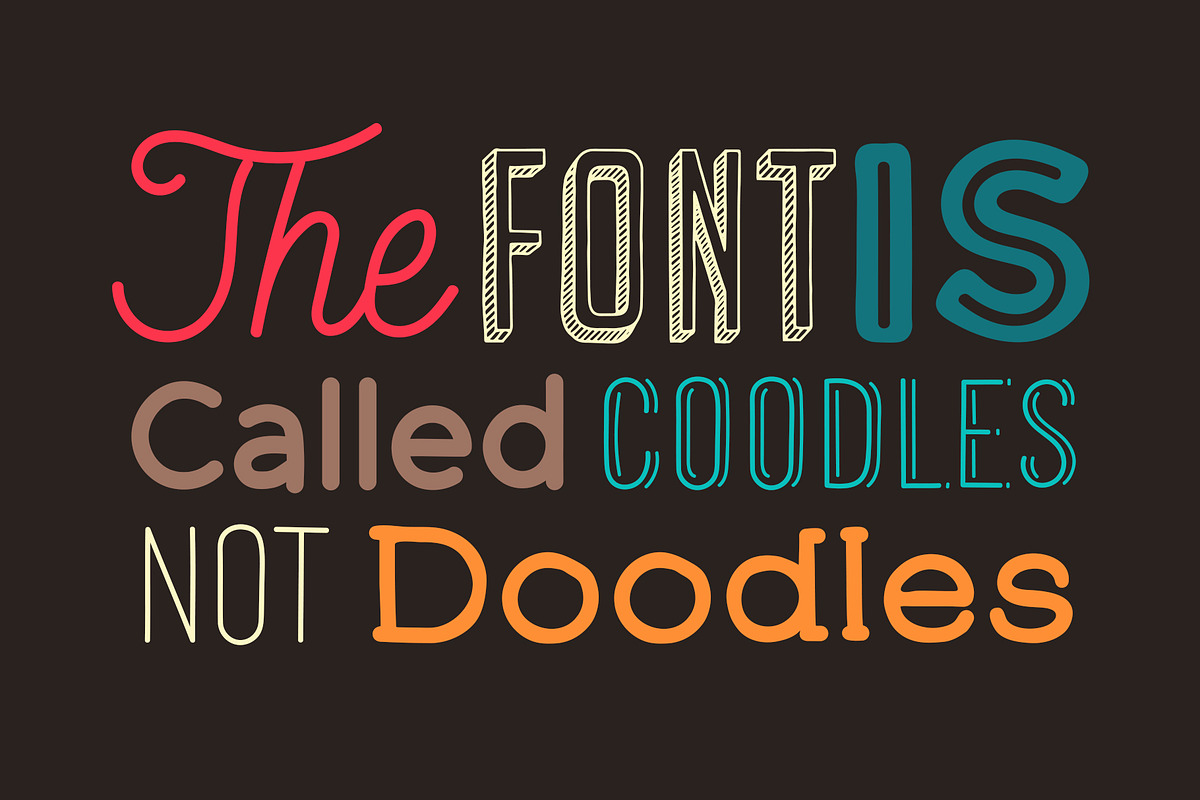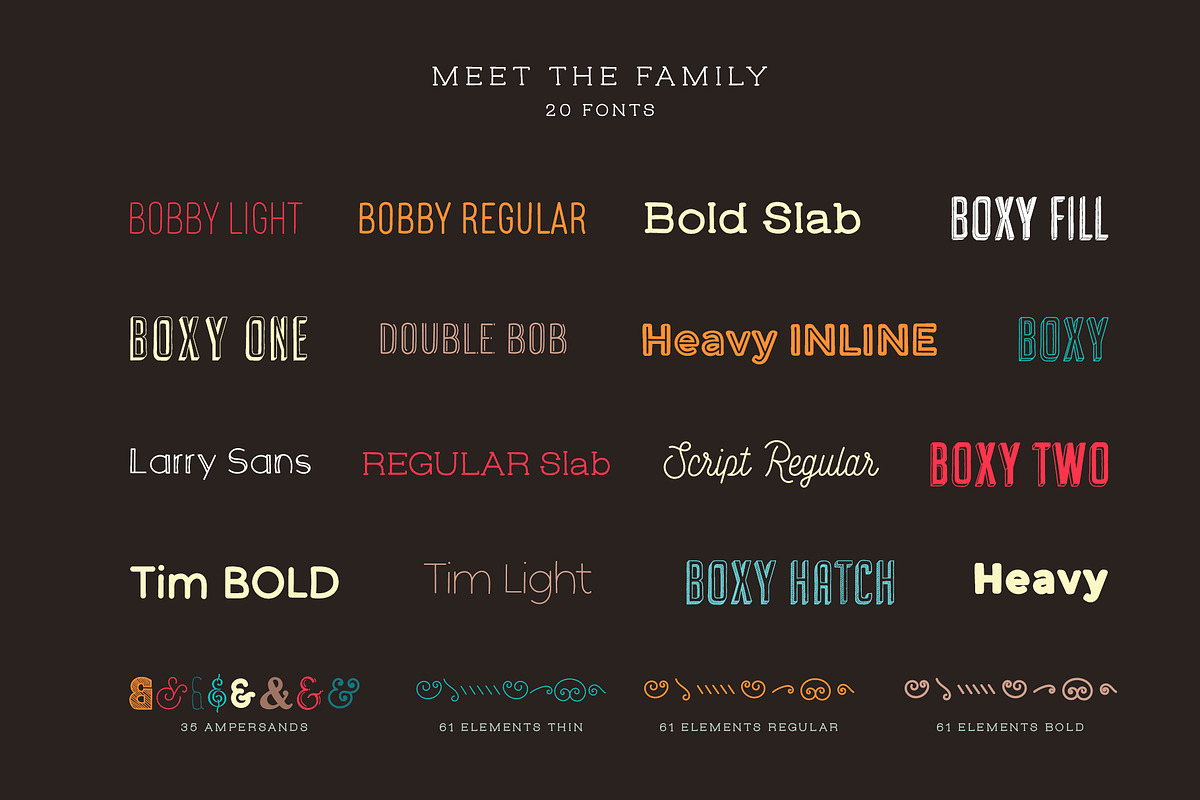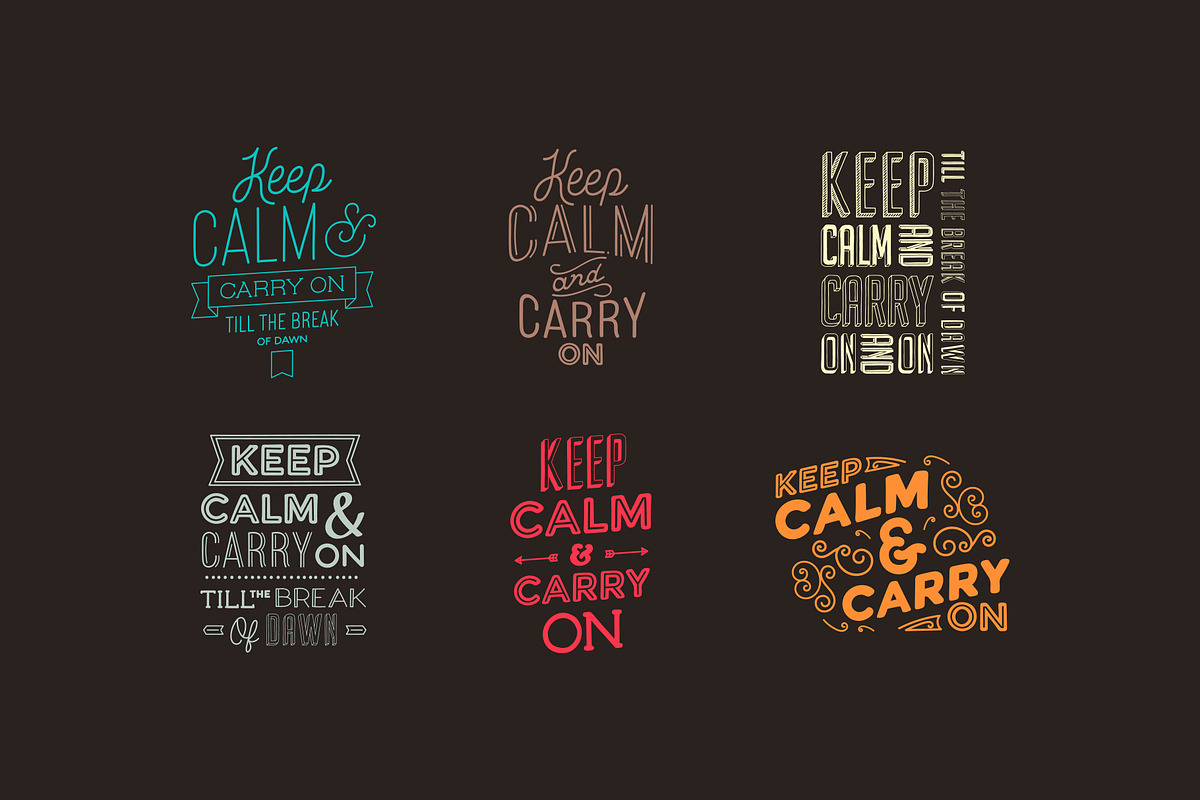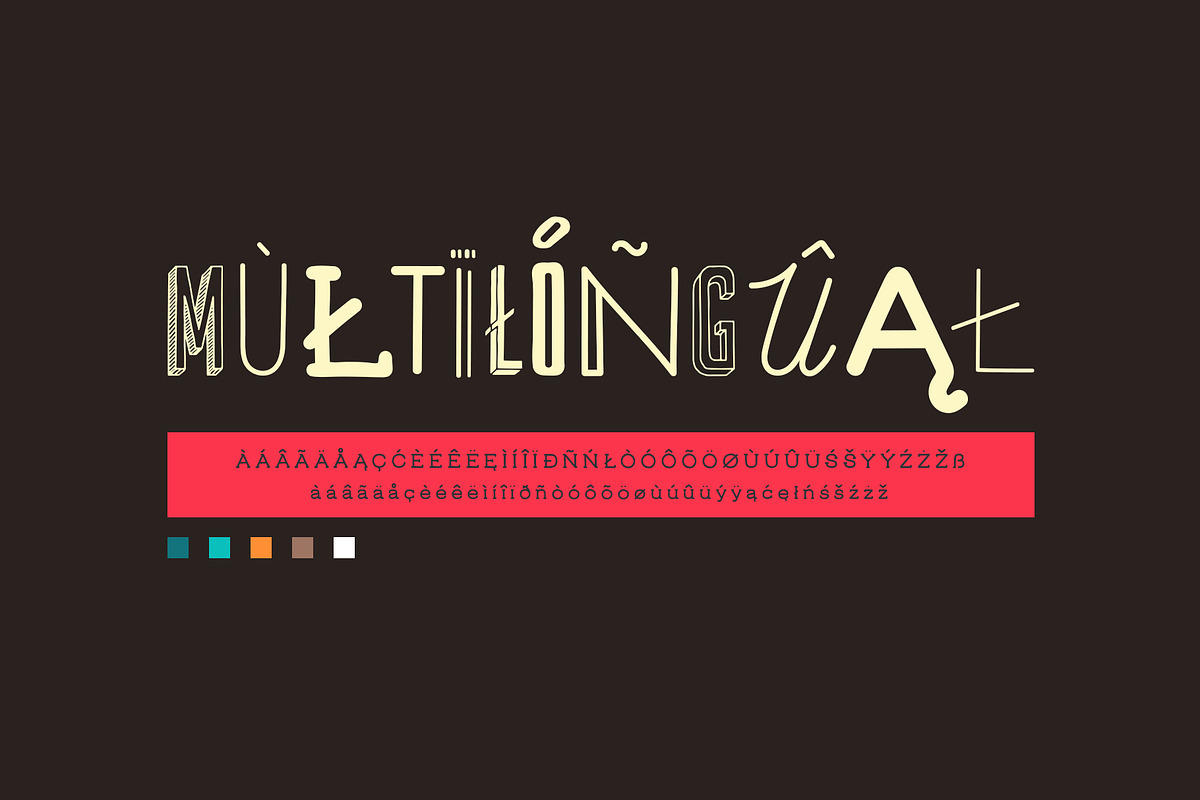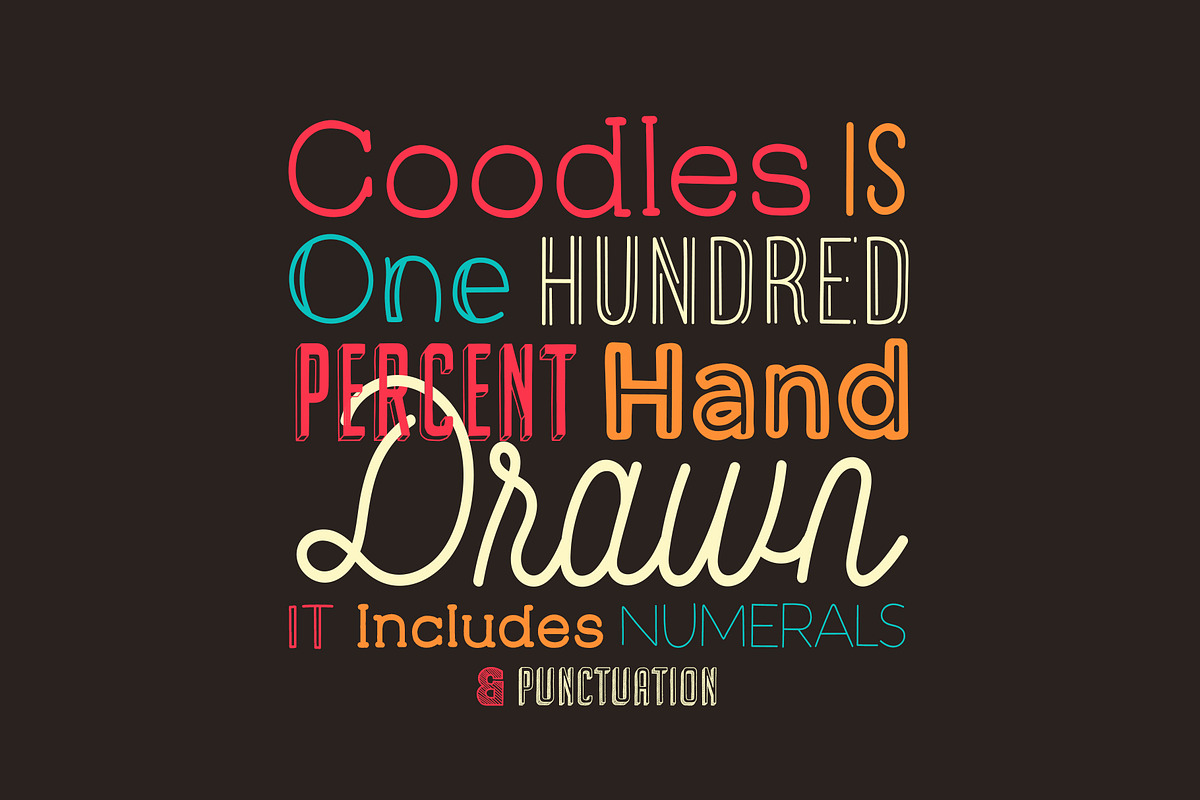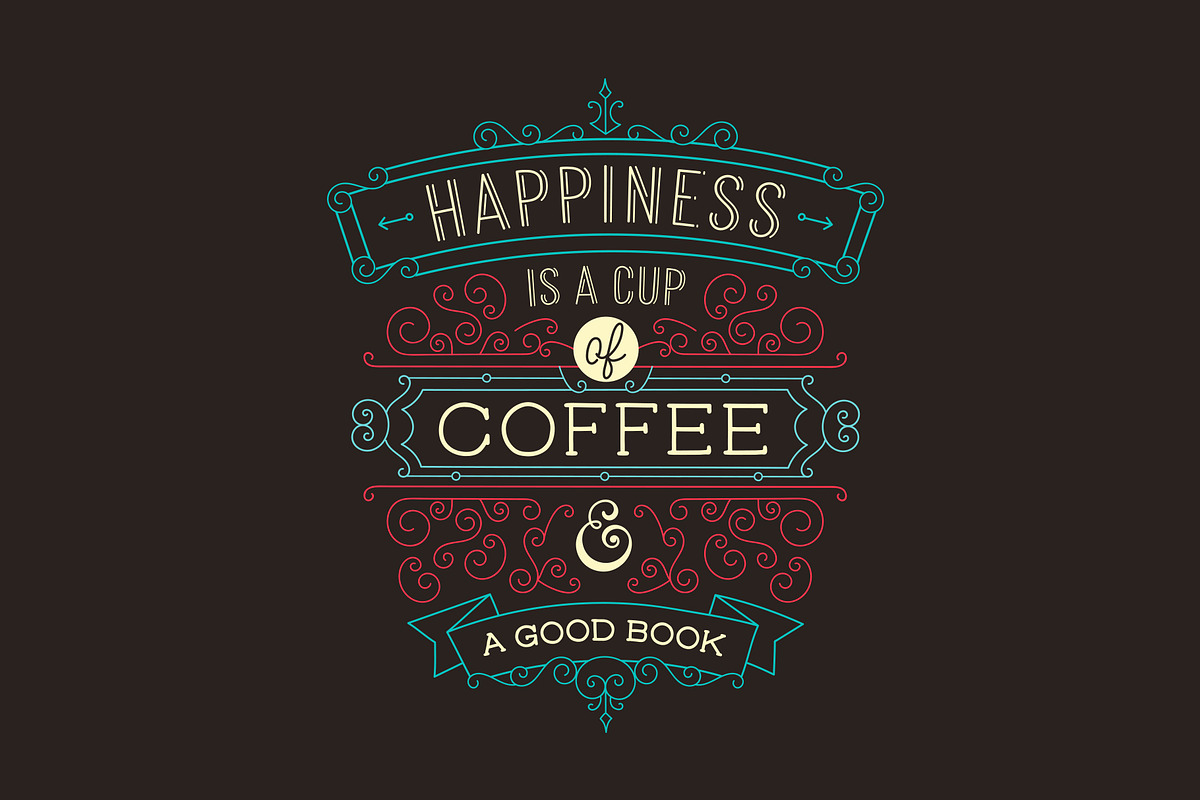
Coodles Hand Drawn Font Family
Coodles is a large family of fonts featuring all you need to create playful and awesome logos and typography! All of the fonts, including the illustrations are hand drawn and go great with each other!
3 fonts in the form of illustrations
1 font featuring ampersands
Uppercase and lowercase (lowercase for only half - see presentation)
Numerals and punctuation
Alternates and ligatures
Coodles Hand Drawn Font Family by Graphicdome fits naturally into Branding, posters, packaging, typography.